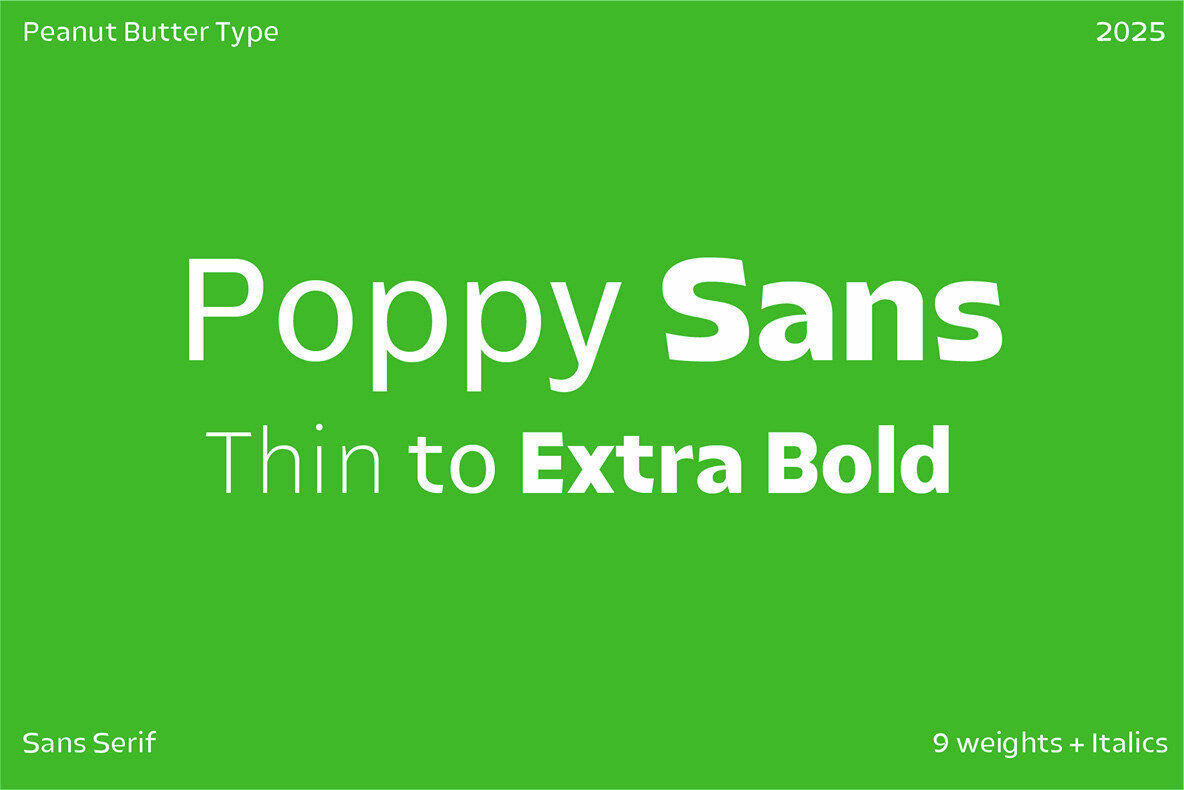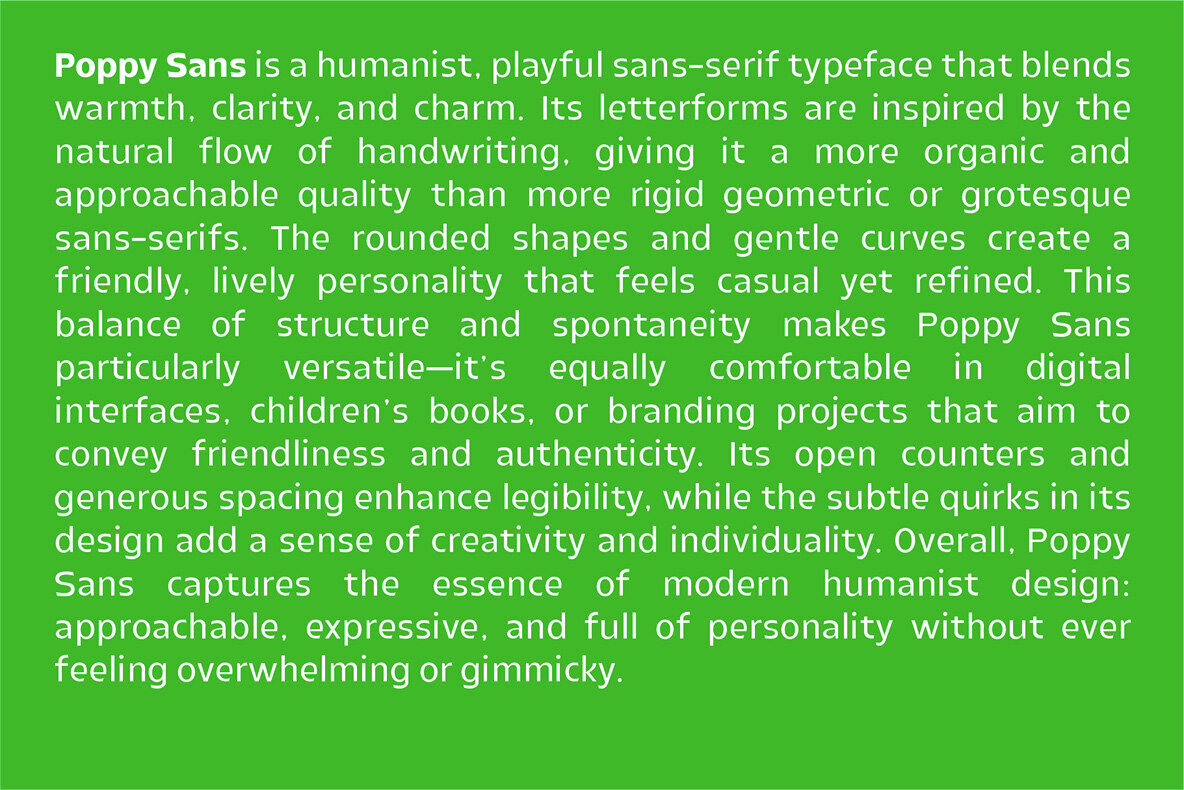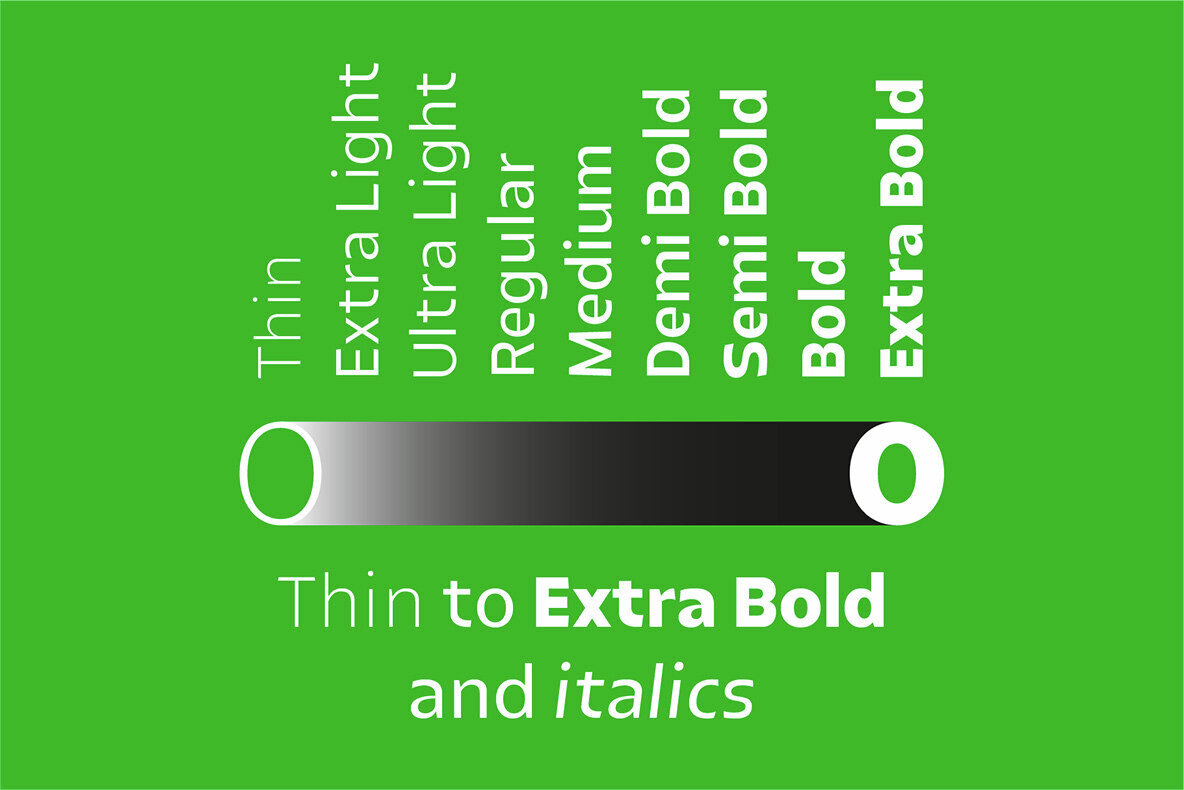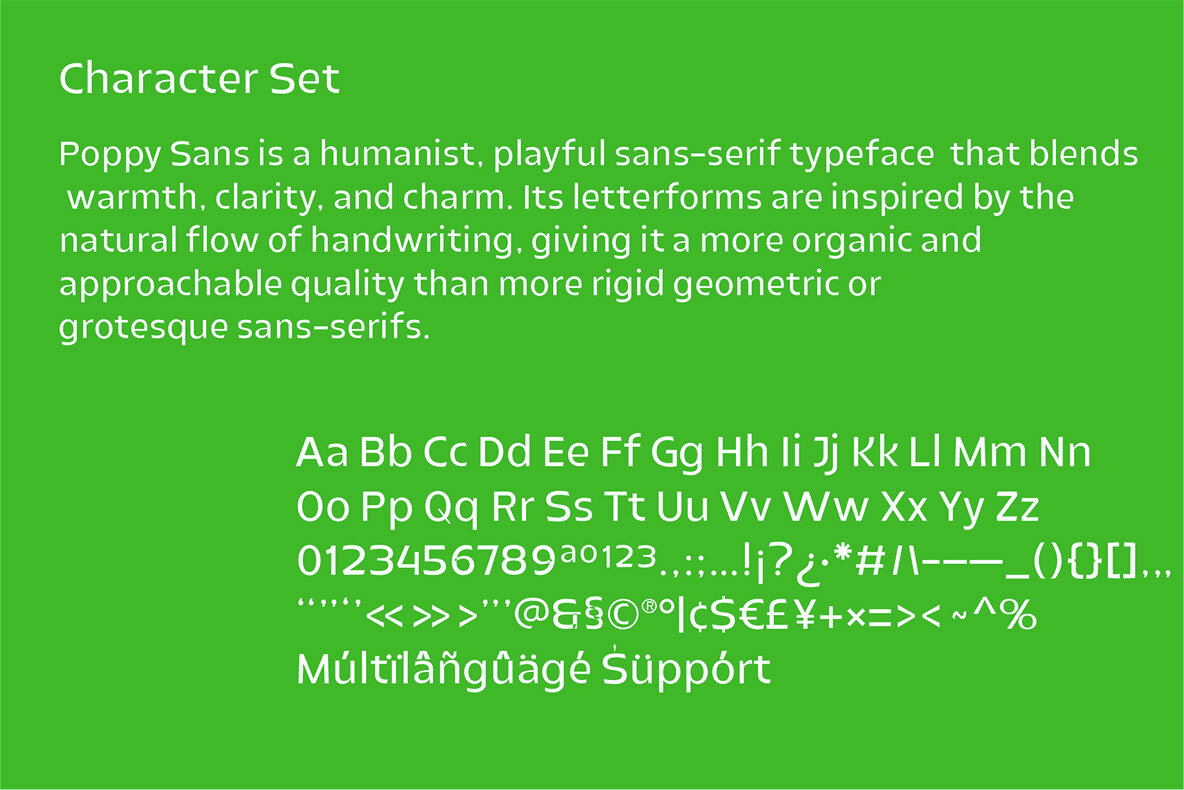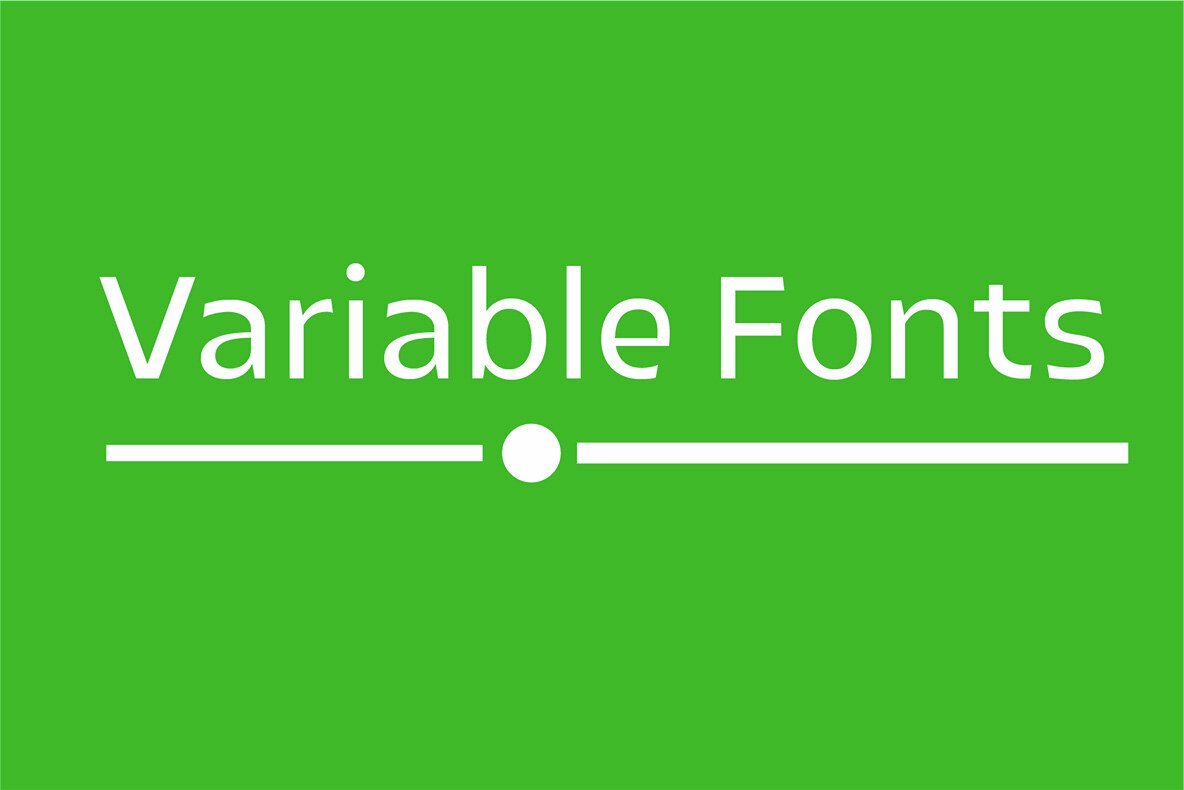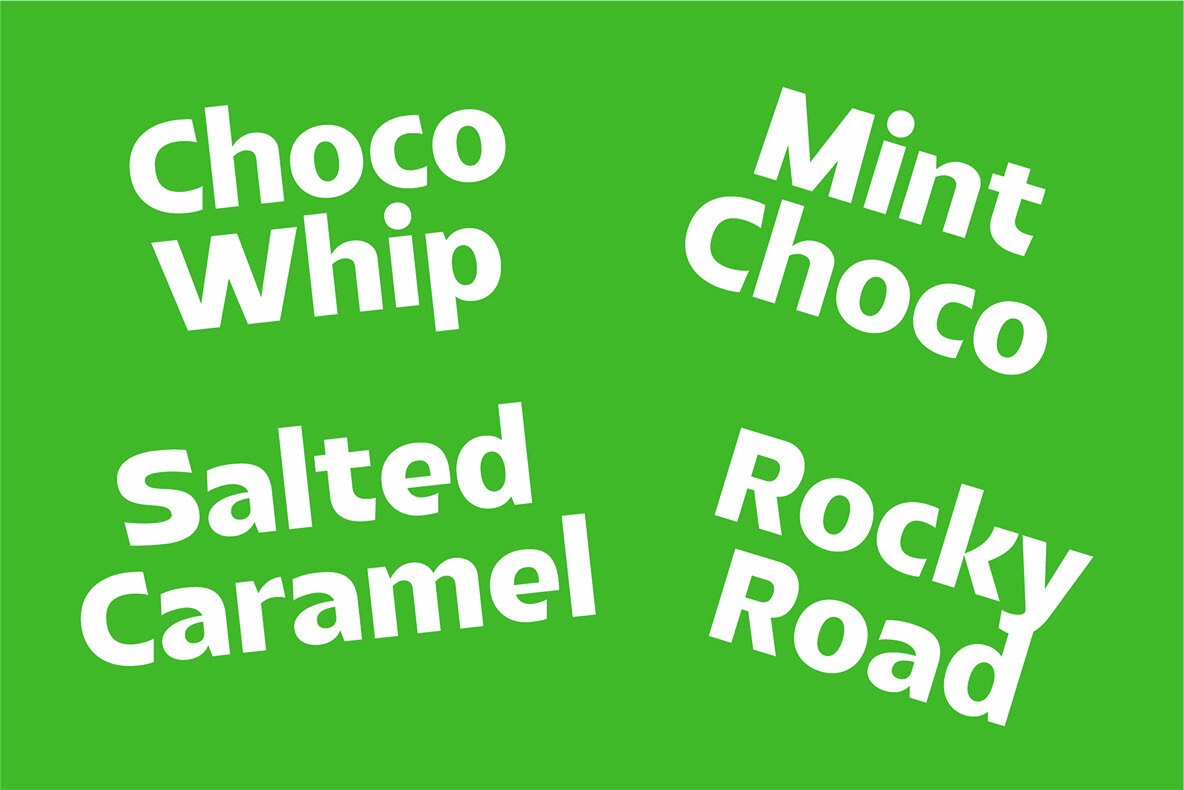
Poppy Font
Poppy Variable
Poppy Sans is a playful sans-serif typeface that embodies warmth, clarity, and charm. Its design is rooted in the natural flow of handwriting, offering an organic and approachable quality. This sets it apart from more rigid geometric or grotesque sans-serifs. The typeface features rounded shapes and gentle curves, striking a friendly balance between casual and refined. Its versatility shines in digital interfaces, children's books, and branding projects that aim to convey friendliness and authenticity. The typeface's open counters and generous spacing enhance legibility, while subtle design quirks infuse creativity and individuality.Poppy Sans: Playful Humanist Typeface
Poppy Sans captures the essence of modern humanist design: approachable, expressive, and full of personality. It achieves this without feeling overwhelming or gimmicky.